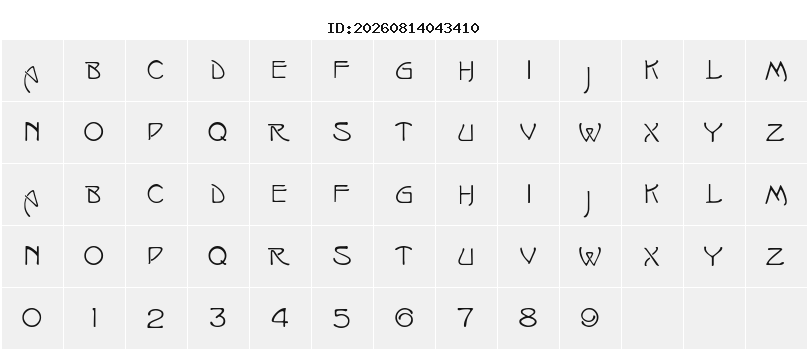
Swansea Preview
• Font Name: Swansea
• Full Font Name: Swansea
About Swansea.ttf
Swansea.ttf is a modern, elegant sans-serif font designed for ultimate readability and visual harmony. Perfect for branding, headlines, web design, and print materials.